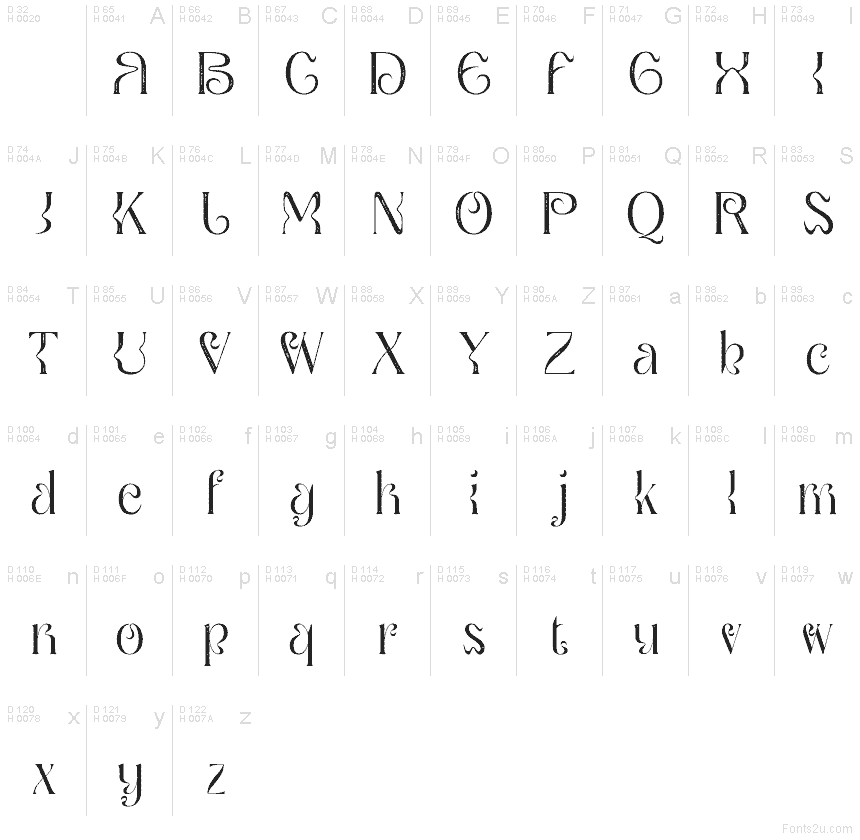
Qaila Stamp Regular Demo
Qaila Stamp font by Craft Supply Co. is a free display font presenting itself with vintage style organic letters that have a classic touch. Designed with perfect curves, weights, and proportions, the typeface turned out very elegant and impactful in an attractive way as intended by the author himself.